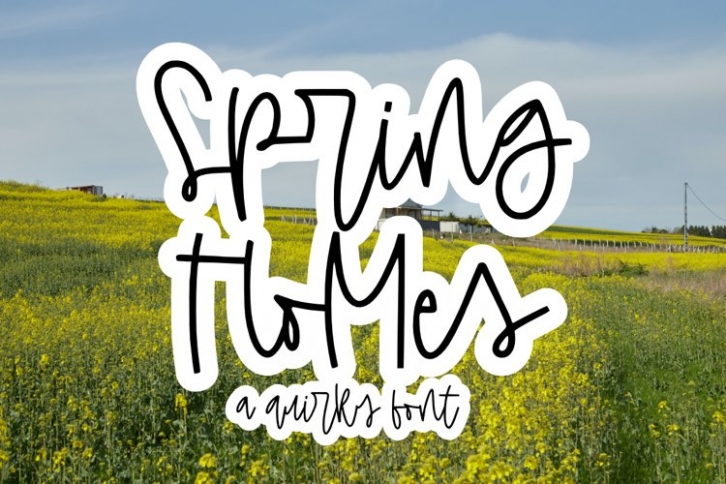
Spring Homes is a gorgeous font that was realeased on July 20, 2022. The font can be used in many style contexts and design environments. Perfect for invitations, magazines, websites, logos, and more! It was designed by plusstore and the file size is 1.35 MB. Thanks for checking out this font!